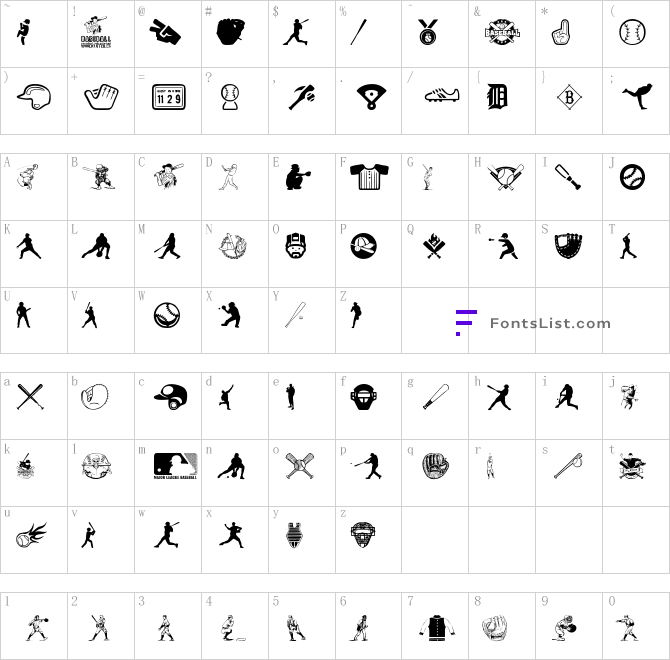
- Font Name:Baseball Icons
Baseball-Icons.ttf is a very beautiful artistic font, Baseball-Icons.ttf is widely used in the design and printing of various books and pictures,Baseball-Icons.ttf has a strong visual impact,Baseball-Icons.ttf is a commonly used font in newspapers, magazines and books, and is used in posters, e-commerce Poster design, store design, logo design, font design and other fields.Baseball-Icons.